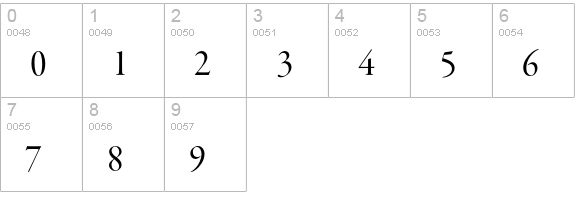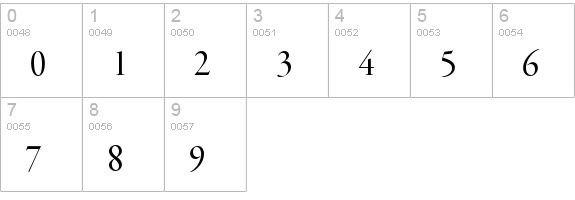
Garamond Premier Pro Display Font Details
Garamond Premier Pro Display font exudes elegance and sophistication with its timeless design and classic serif style. Perfect for creating stunning headlines, titles, and displays, this font is sure to make a statement in any project. Its sharp and clean lines combined with the perfect balance of thick and thin strokes make it a versatile choice for both print and digital designs. And the best part is, Garamond Premier Pro Display font is available for free download at FontsMarket.com. Now you can easily access this premium font without any cost, making it a valuable addition to your font library. Whether you're working on a professional project or a personal design, Garamond Premier Pro Display font will elevate your work with its refined aesthetic and exceptional legibility. Download it now and see the difference it can make in your designs!